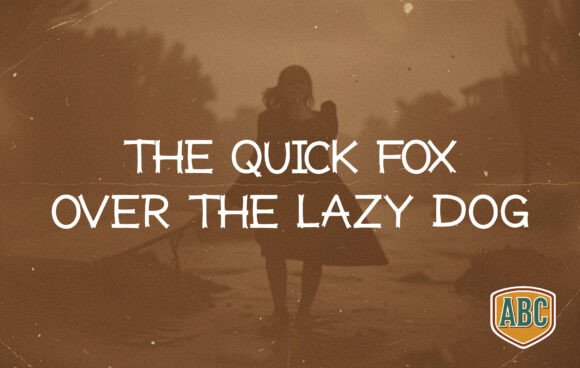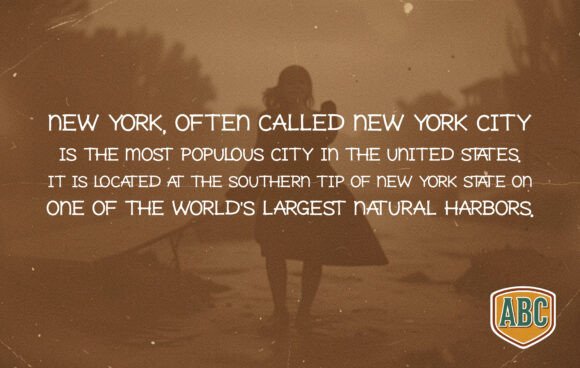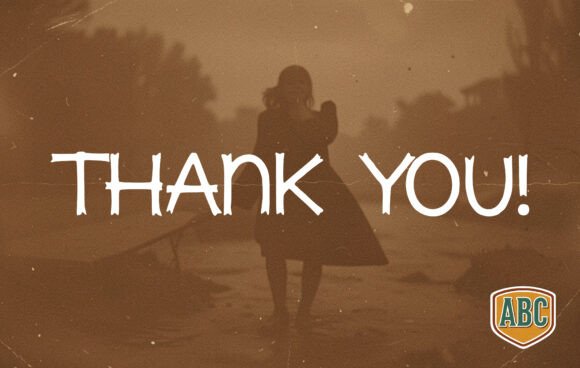
Introduction to Saddle Brown Font
Have you ever stumbled upon an old, dusty book in a vintage bookstore, and as you flip through its yellowed pages, you’re suddenly transported to the wild west? The Saddle Brown Font is like that book, a design resource that can take you on a journey back in time and evoke the spirit of adventure and freedom.
As a designer, you’re always on the lookout for that special something that can give your creative project an edge. The Saddle Brown Font is that something – a high-quality, rugged display typeface that’s perfect for projects that need a touch of history and authenticity. With its unique “notched” letterforms and hand-carved appearance, this font is a free download that’s sure to add a touch of cowboy cool to any design.
Whether you’re designing a vintage-inspired label or a rustic menu, the Saddle Brown Font is a valuable asset that can help you create bold, eye-catching headers and branding that demand attention. And with its transparent background and earthy tones, it’s the perfect addition to any design project that needs a touch of the wild west.
Key Features of Saddle Brown Font
- High-quality font design ideal for various creative projects, including logos, posters, and publications.
- Unique, earthy tone reminiscent of worn leather, perfect for rustic or vintage-themed designs.
- Perfect design resource for designers, artists, and writers looking for a distinctive, high-quality font for their creative projects.
Honest Review: Saddle Brown Font
One of the things that works well with this font is its versatility. It’s perfect for creative projects that require a touch of warmth and sophistication. The Saddle Brown Font comes with a range of weights, from light to bold, allowing you to experiment with different styles and tones.
- ✨ High-quality design: The font is well-crafted, with smooth lines and a professional finish.
- ✨ Transparent background: This feature makes it easy to customize the font and integrate it with other design elements.
However, I do have a few limitations to mention. ⚠️ The font doesn’t come with a lot of unique characters, which may limit its use in certain creative projects. Additionally, the font can look a bit dated in certain contexts, which may not be ideal for modern designs.
Saddle Brown Font
The Saddle Brown Font is a versatile and high-quality design resource perfect for various creative projects. With its unique and earthy tone, this font is ideal for designs that require a natural and rustic feel.
Tips for Getting the Most Out of Saddle Brown Font
To get the most out of Saddle Brown Font, use it in combination with other design elements that have a natural and earthy tone. You can also experiment with different font sizes and styles to create a unique and visually appealing design.
The Saddle Brown Font is commonly used in designs that require a natural and rustic feel, such as outdoor-themed designs, nature-inspired graphics, and earthy product packaging.